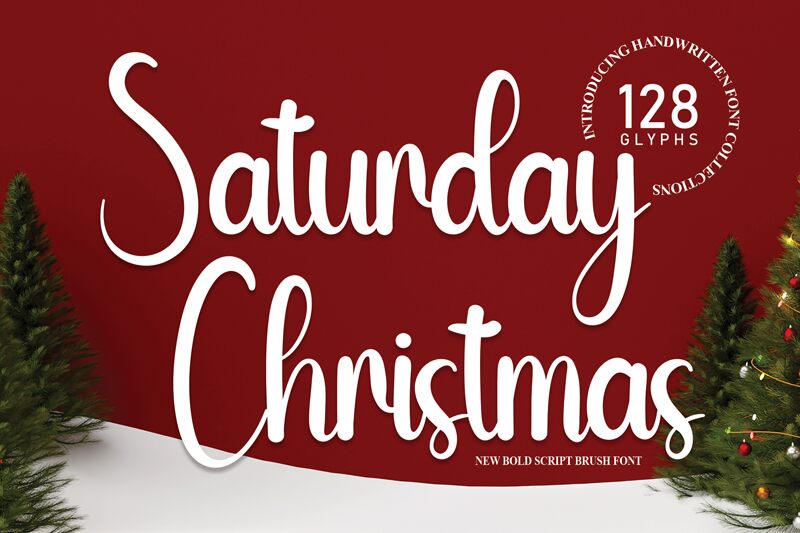
Saturday Christmas
Saturday Christmas, designed by Scratchones, embodies the warmth and charm of the holiday season with its handwritten style. This semi-light font carries a touch of casual elegance, while its semi-condensed width ensures that it maintains a friendly and approachable vibe. The fluidity of the strokes in Saturday Christmas adds a personal and bespoke quality to any project it graces.
With its delightful aesthetic that harmoniously blends playfulness with sophistication, Saturday Christmas is an ideal choice for greeting cards, invitations, or any creative work seeking to convey intimacy and joy. Its versatile appearance makes it equally fitting for festive branding or seasonal advertising campaigns looking to capture the essence of handwritten authenticity. Embrace the spirit of celebration with this exquisite font that can turn everyday designs into enchanting visual stories.